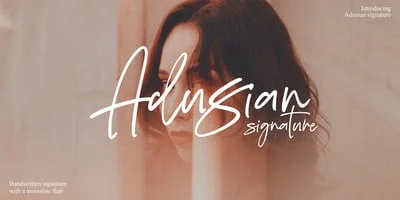
Adusian Signature Font
Adusian Signature Font is perfect for luxury personal branding materials, distinguished signature designs, elegant boutique signage, sophisticated wedding invitations, premium autograph collections, refined calligraphy services, exclusive personal stationery, upscale handwriting coaching materials, distinguished testimonial presentations, and authentic signature-style marketing communications.
What makes Adusian Signature Font so exciting is its extraordinary ability to capture the intimate elegance and personal authenticity of genuine signature writing through flowing letterforms that seem written with the same confident strokes and personal flair that distinguish the signatures of accomplished individuals who understand that a signature is more than identification—it is a personal statement of character and style. This font embodies the essence of handwritten sophistication and personal distinction, featuring gracefully scripted characters that appear to flow from the pen of someone who has developed their signature into an expression of personal elegance and professional confidence. The intimately crafted letter shapes create an atmosphere of personal authenticity and sophisticated individuality, making every word feel like it carries the weight of personal endorsement and the promise of genuine human connection in an increasingly digital world.
The Adusian Signature Font family includes Light, Regular, Medium, Bold, and Flourished variations, along with signature-style swashes and personalized decorative elements. Each style maintains the font's distinctive handwritten character while offering versatility for different signature applications, from subtle personal correspondence to commanding autograph presentations that celebrate the enduring value of authentic handwritten communication.
This distinguished typeface brings authentic signature aesthetics to contemporary design projects. The Adusian Signature Font offers designers an invaluable resource for creating memorable brand identities that communicate personal authenticity, handwritten elegance, and signature sophistication. Whether you're developing personal branding materials, designing signature-style communications, or creating authentic handwritten presentations, this font delivers unmatched personal appeal and signature credibility.
The lovingly crafted letterforms in Adusian Signature Font feature flowing connections and natural variations that mirror the organic rhythm of confident handwriting and the personal touches that make each signature as unique as the individual who writes it. Each character has been designed to maintain perfect readability while expressing the personal authenticity and handwritten charm that define genuine signature style. The font's distinctive personality makes it ideal for applications requiring authentic personal authority and signature appeal.
Personal branding and luxury service professionals appreciate how Adusian Signature Font effortlessly communicates authenticity, personal distinction, and handwritten sophistication while appealing to discerning clients who value the personal touch and authentic human connection that distinguish genuine signature services from mass-produced alternatives. The comprehensive character set includes signature symbols, personal flourishes, handwritten elements, and extensive international language support, ensuring global compatibility while preserving its distinctive Adusian identity. This makes it an invaluable resource for personal brands, luxury services, calligraphy professionals, and any individual seeking typography that embodies the timeless principles of personal authenticity, handwritten elegance, and the kind of signature sophistication that transforms ordinary communication into personal expressions of character and style that remind us that in our digital age, the human touch of authentic handwriting remains one of the most powerful ways to communicate genuine personality and create lasting impressions through the simple act of putting pen to paper with confidence and grace.